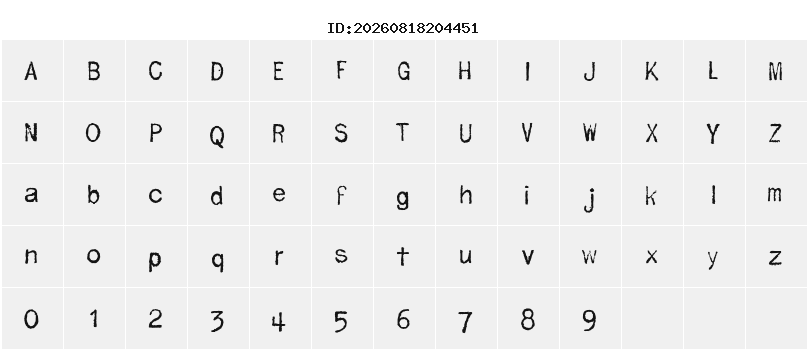
Sixcess Preview
About Sixcess.ttf
Sixcess.ttf is a modern, elegant sans-serif font designed for ultimate readability and visual harmony. Perfect for branding, headlines, web design, and print materials.